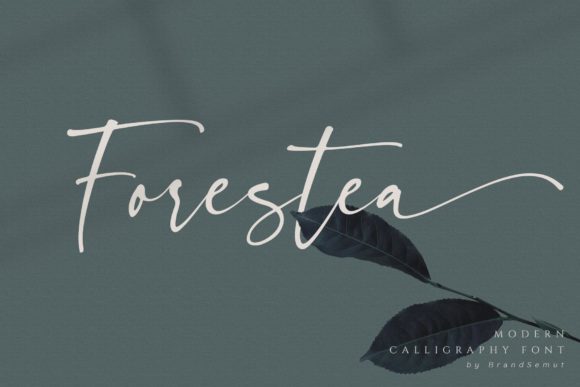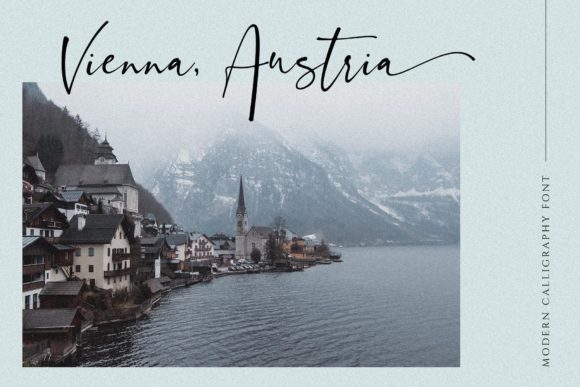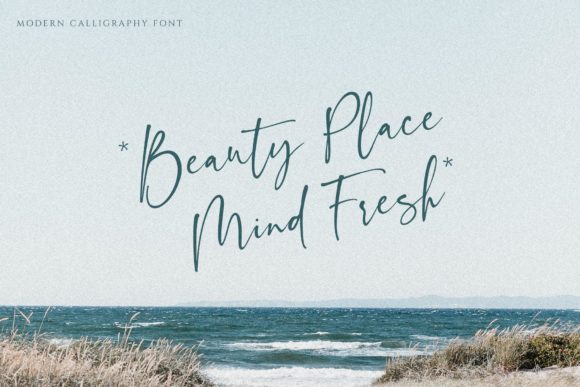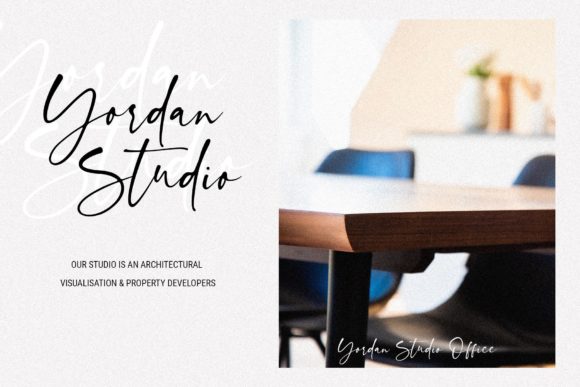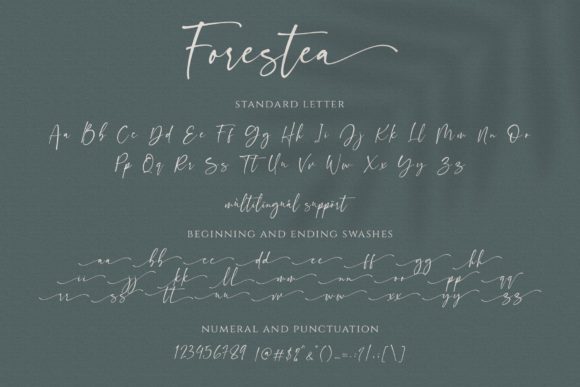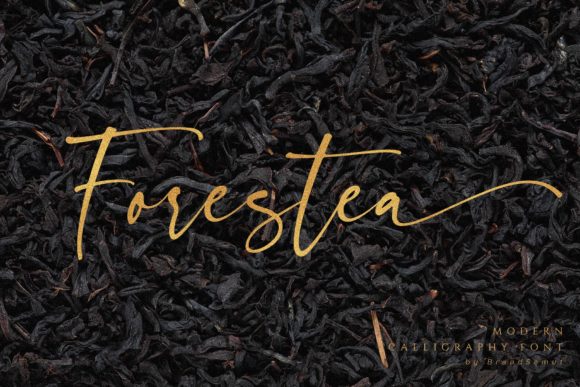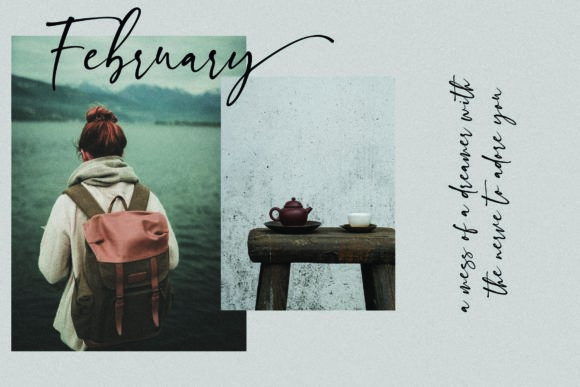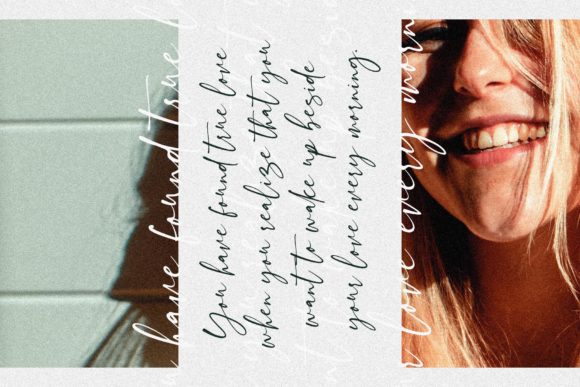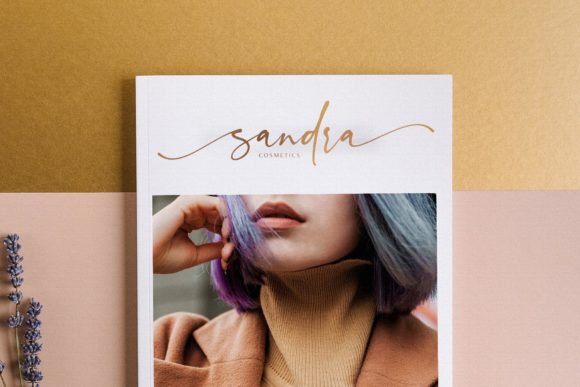
Forestea Font
About Forestea Font
Forestea updates classic calligraphy with a modern twist. This magical script is the ideal font for turning any design project into a true standout.